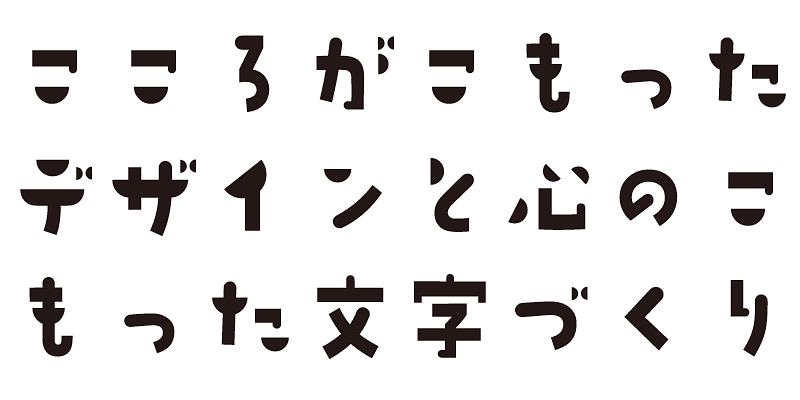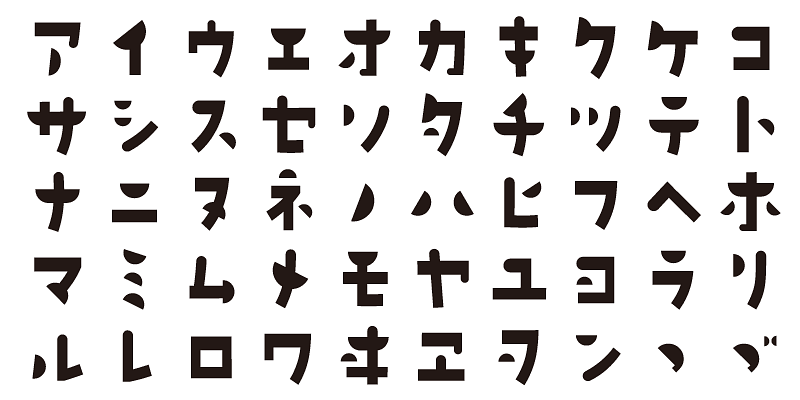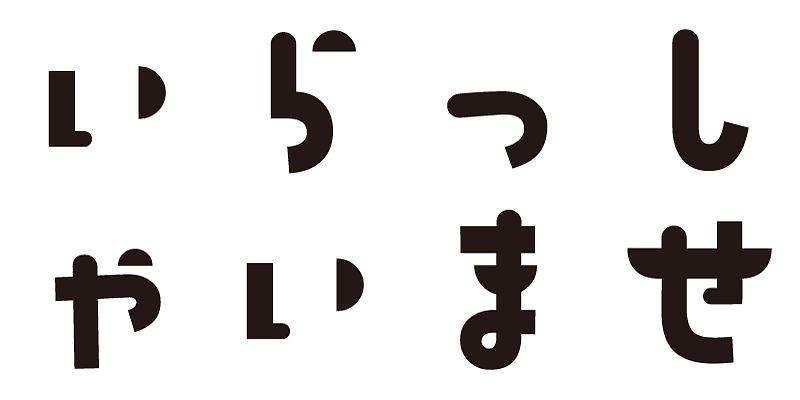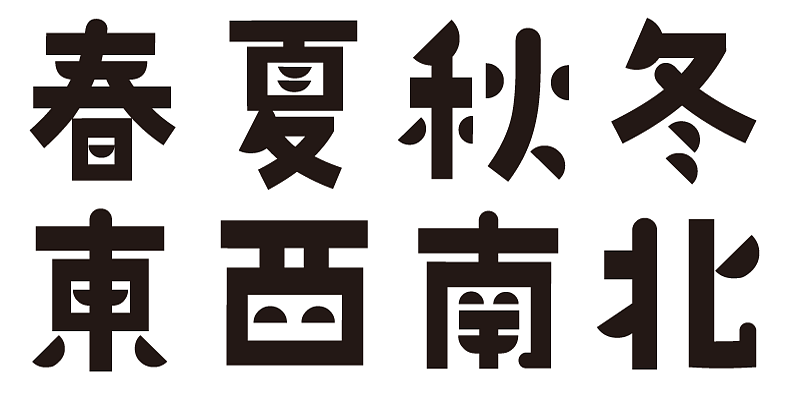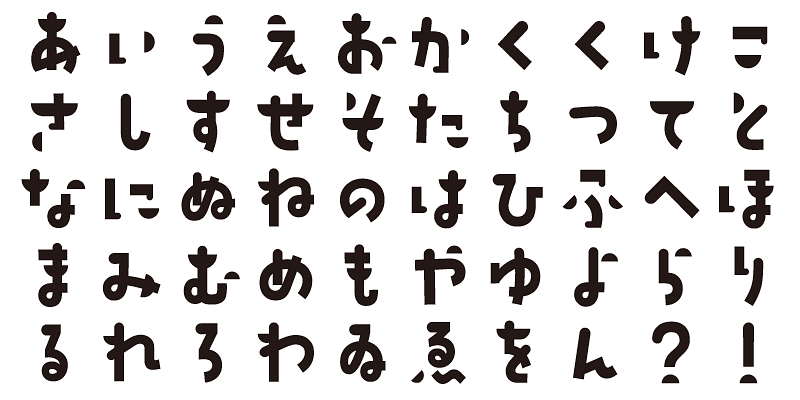
A big-boned typeface with a nostalgic and playful flavor, which will make you smile.
Each font in this typeface family includes 1,000 kanji characters, as well as hiragana, katakana, alphanumeric characters, and punctuation marks.
We design typefaces with the hope that they will add underlying meaning to words expressed. We wish the user to feel good and experience comfort and joy when using these typefaces.